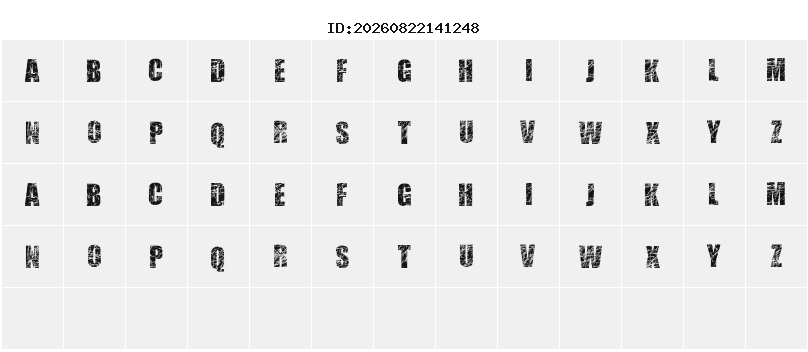
Scratched Letters Preview
• Font Name: Scratched Letters
• Full Font Name: ScratchedLetters
• PostScript Name: ScratchedLetters
About Scratched Letters.otf
Scratched Letters.otf is a modern, elegant sans-serif font designed for ultimate readability and visual harmony. Perfect for branding, headlines, web design, and print materials.